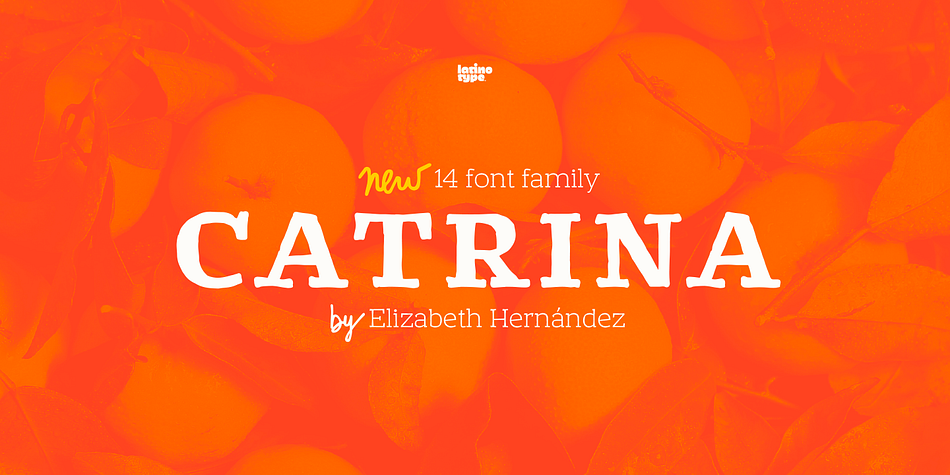
Catrina
Designed by Eli Hernández, Catrina is a dingbat and hand drawn font family. This typeface has fourteen styles and was published by Latinotype.
Catrina, designed by Eli Hernández, is an expressive typeface whose curves and straight lines meet each other in harmonious synchrony.
Catrina comes in 6 weights, ranging from Thin to Black, plus a Handmade version and includes Dingbats and Catchwords which make it the perfect choice for packaging, branding, titles and advertising.